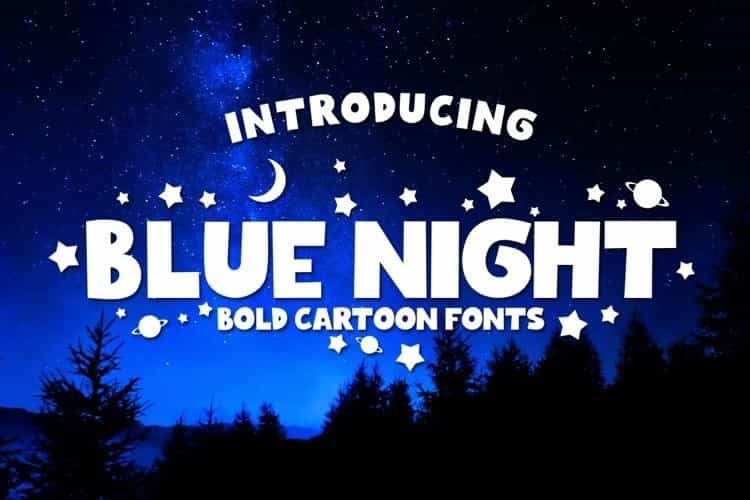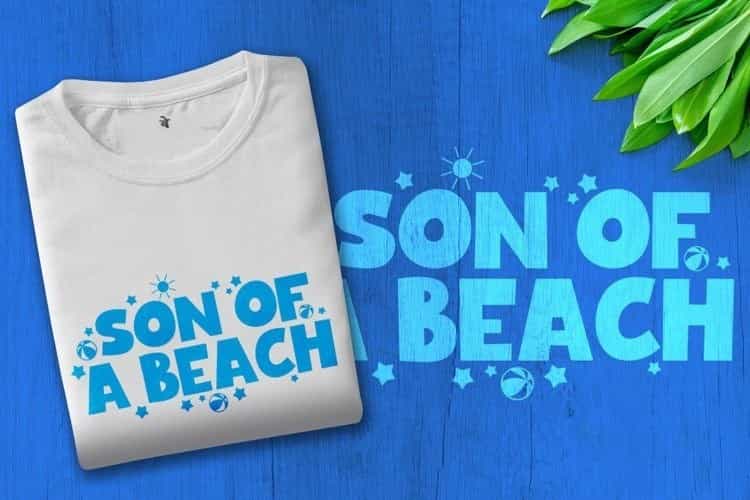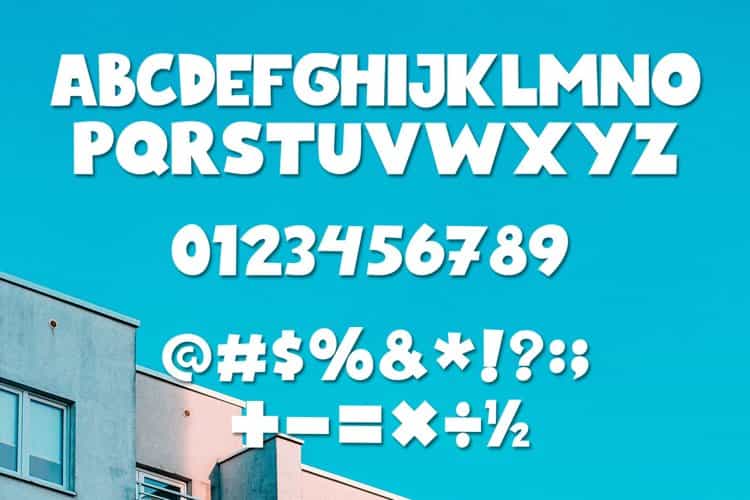
Discover Blue Night Bold Cartoon Font, part of the Sans Serif Display Cartoon collection—a versatile and unique font perfect for adding a personal touch to your projects. Download it for free and enjoy crafting designs with style, from invitations to social media posts. This font is available exclusively for personal use, giving you the freedom to create without limits. Unlock your creativity with Blue Night Bold Cartoon Font today!
Blue Night – Cute and fun color font to design your. A thick font that has the feel of a cartoon easy to read and enjoyable, a font is easy to play with. It is ideal for products for children like games, books or other playthings, and also designs for playrooms and areas for entertainment.